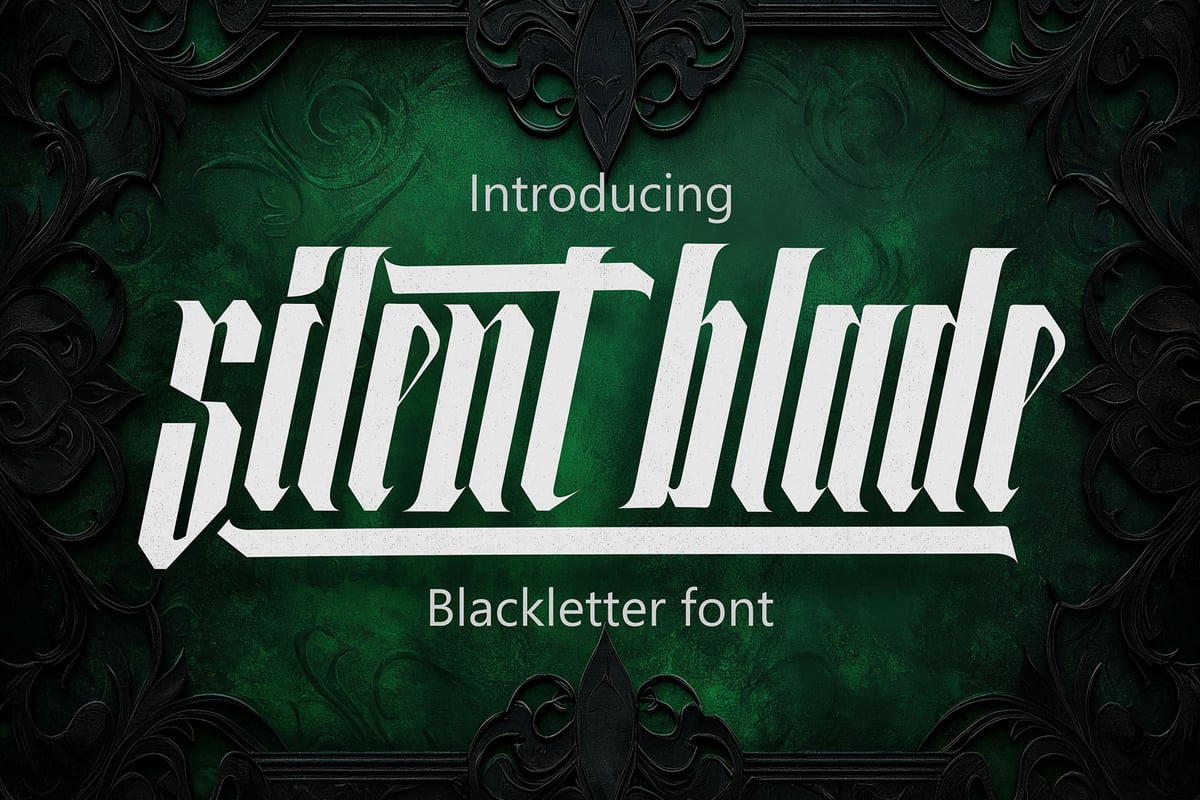
silent blade
Silent Blade is a modern blackletter display font forged with precision and attitude. Inspired by medieval calligraphy and sharpened by contemporary design, this typeface combines traditional gothic elegance with a bold, modern edge. It’s crafted for designers who want to bring intensity, authority, and style to their typography.